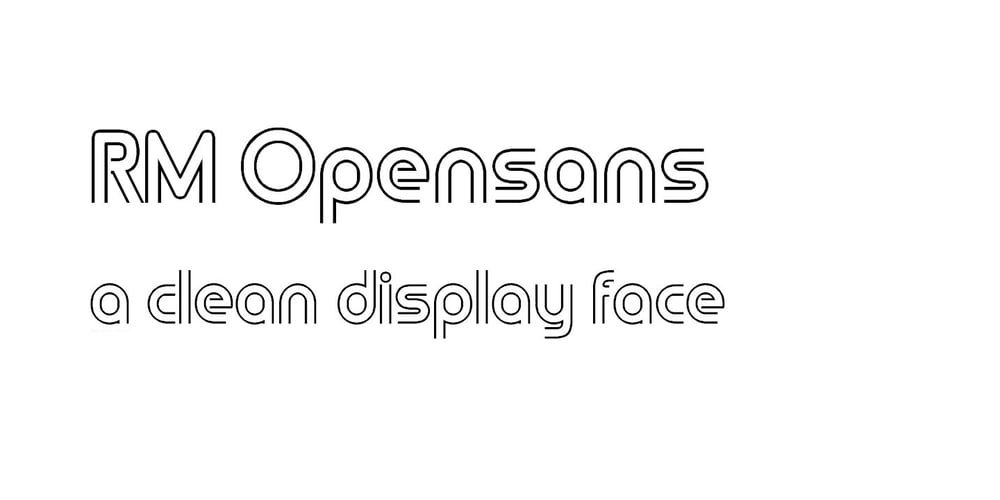
RM Opensans Font Family was designed by Ray Meadows and published by Ray Meadows. RM Opensans contains 1 styles and family package options. This delightful new design has a friendly, open face and will be useful for many display purposes. Due to the modular nature of this design there may be a very slight lack of smoothness to the curves at extremely large point sizes (around 200 pt and above).